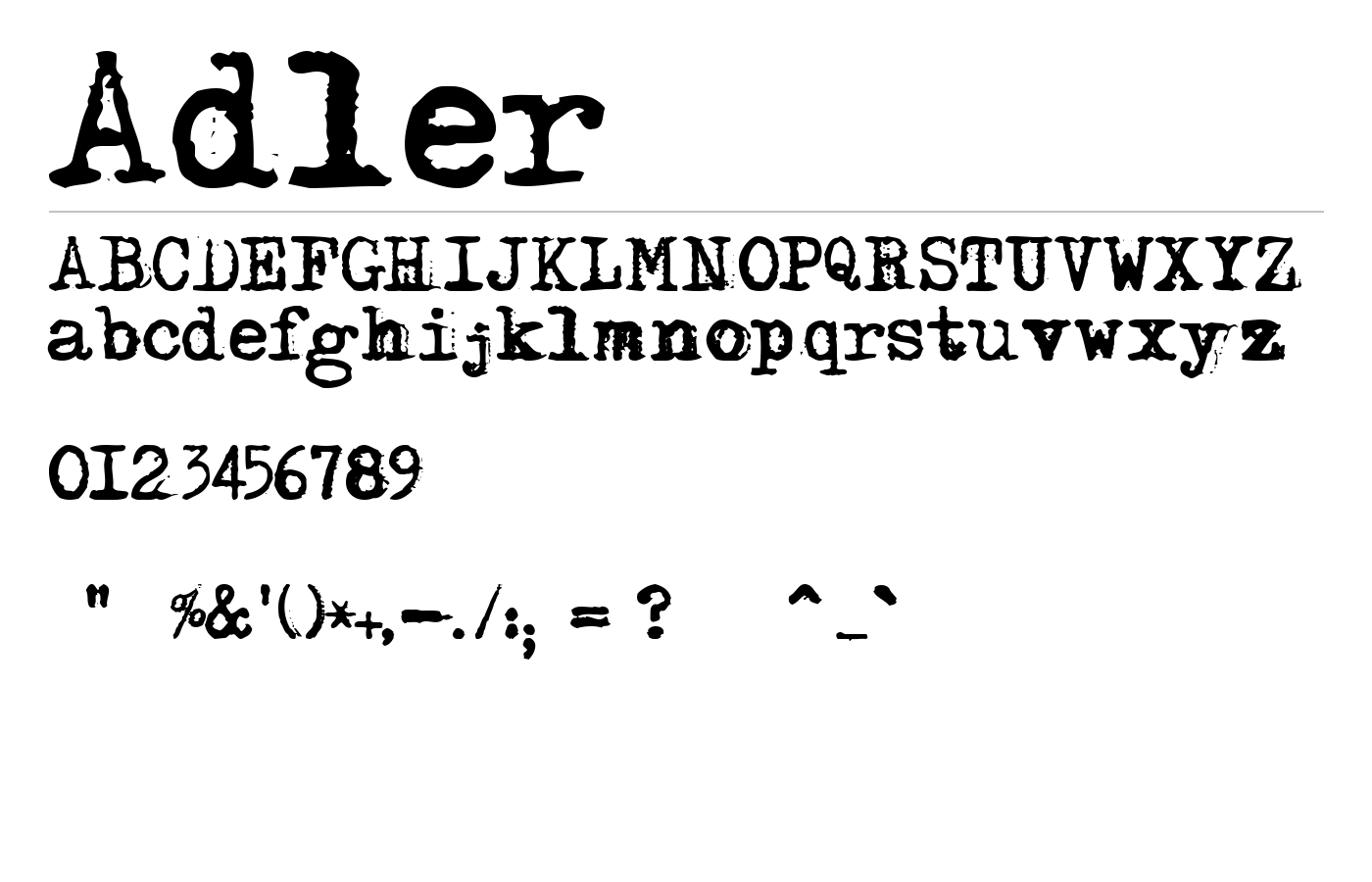
Adler is a distressed slab serif font with a rugged, vintage feel, featuring uneven strokes and textured edges that evoke the look of an old typewriter. Its bold weight and condensed width make it ideal for creating impactful headlines and designs with a nostalgic, gritty character. This font works well in posters, editorial layouts, and branding that seek to convey authenticity and a handcrafted, retro vibe.
Adler Font
About Adler Font